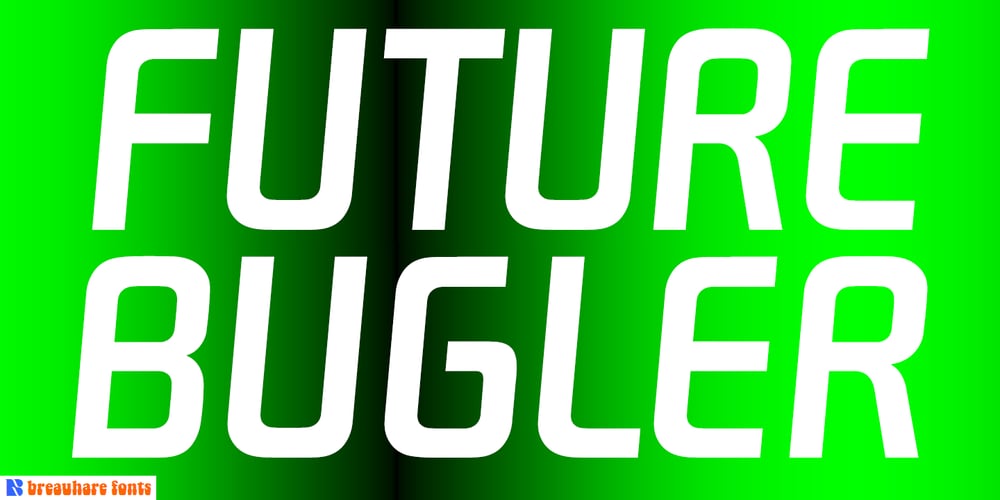
Future Bugler Font Family was designed by Harry Warren and published by Breauhare. Future Bugler contains 3 styles and family package options. Future Bugler is a font based on the second logo created by Harry Warren in early 1975 for his sixth grade class newsletter, The Broadwater Bugler, at Broadwater Academy in Exmore, Virginia, on Virginia’s Eastern Shore. This font can convey several perspectives or moods. It can suggest a space-age vision of the future, or an art-deco perspective of the future as in the movie “Sky Captain and the World of Tomorrow”. It also communicates the idea of high performance, or extreme sports, without the grunge. Also be sure to check out the upright version of this font, Future Bugler Upright, available separately. Digitized by John Bomparte. Additional tags: NFL, NFL Network, NFLN